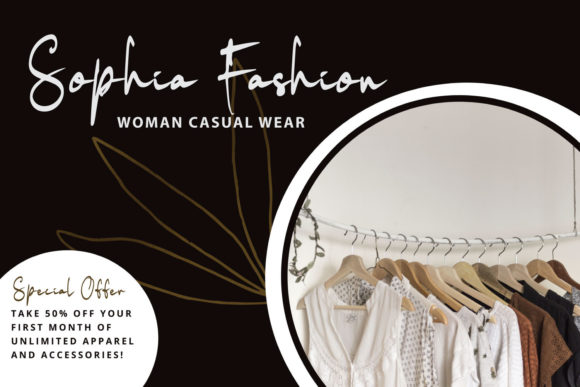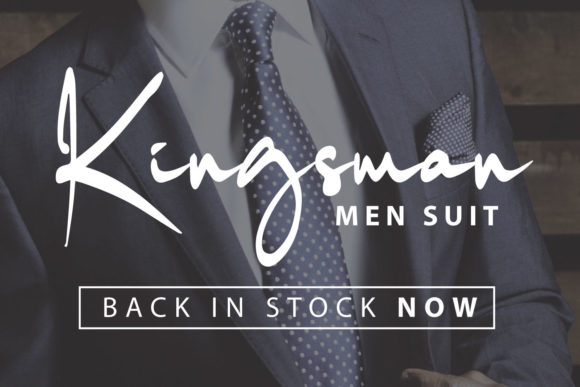
Wingardium Font
db-ku.com - Script & Handwritten -- Wingardium is a stylish and delicate script font. It is suitable for any projects such as: logos, branding projects, label, photography, watermark, special events, and all your other lovely projects that need a beautiful script taste.